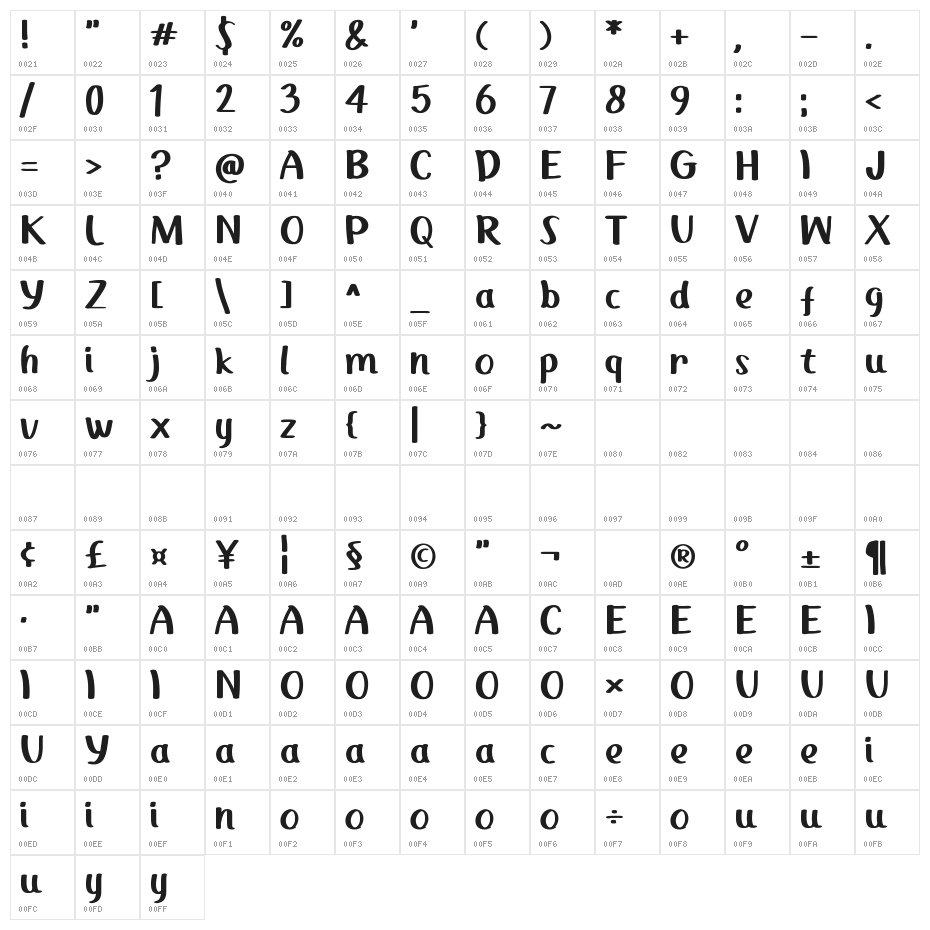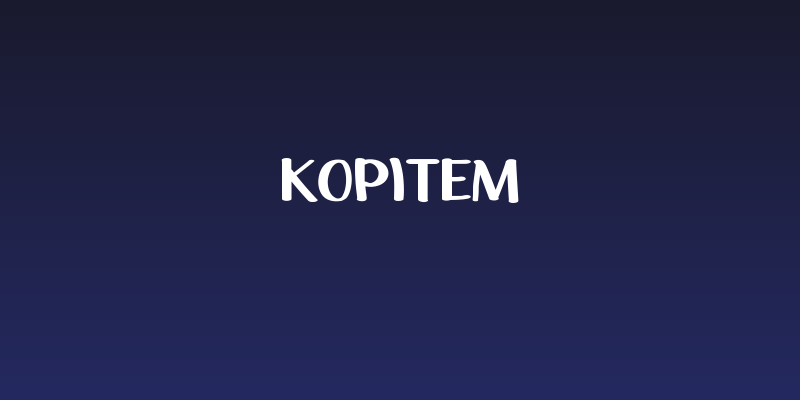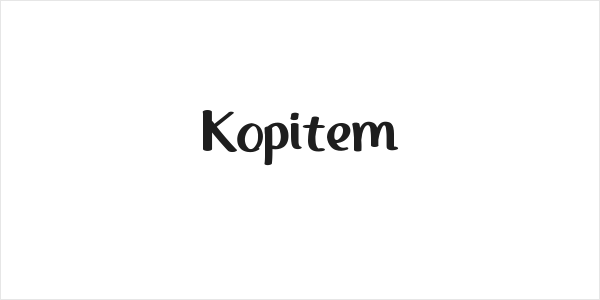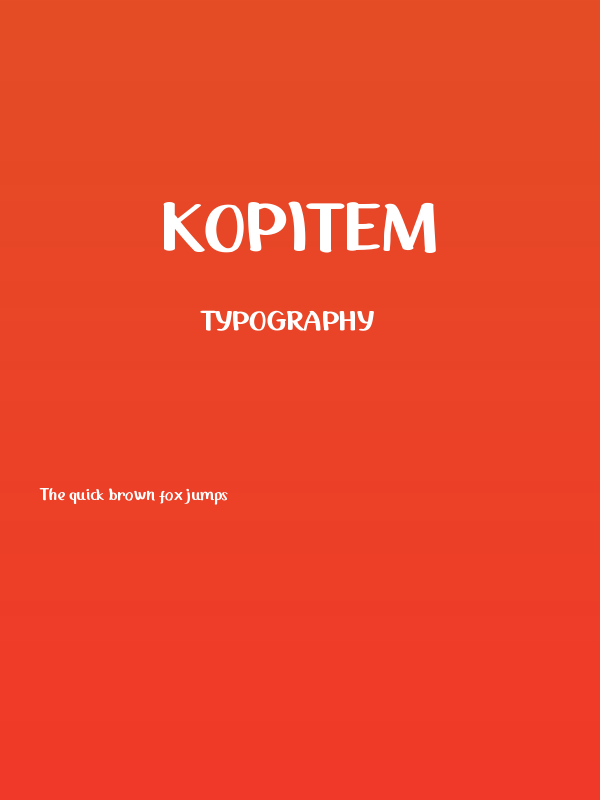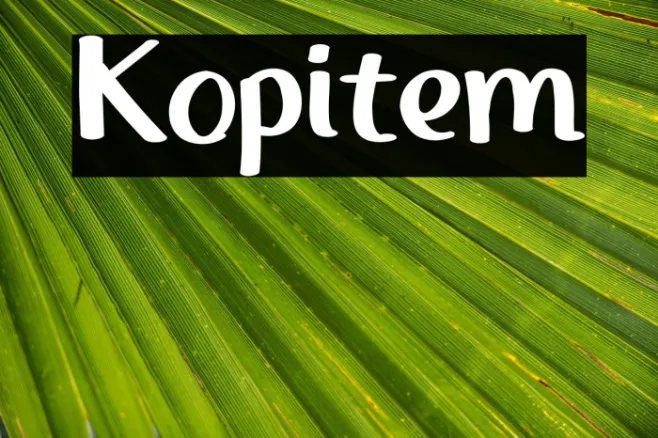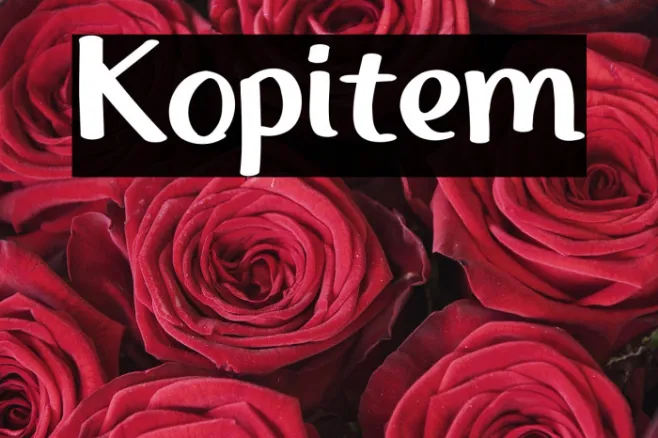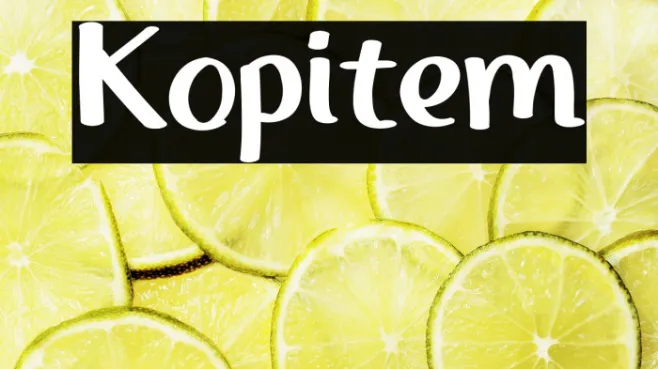
Kopitem Font
Kopitem Description
A playful, handwritten style font with a casual and friendly appearance, featuring rounded edges and varying stroke widths.
| Use Case | Logos, Headlines, Informal text. |
| Proposed Projects | Greeting cards, children's books, casual branding. |